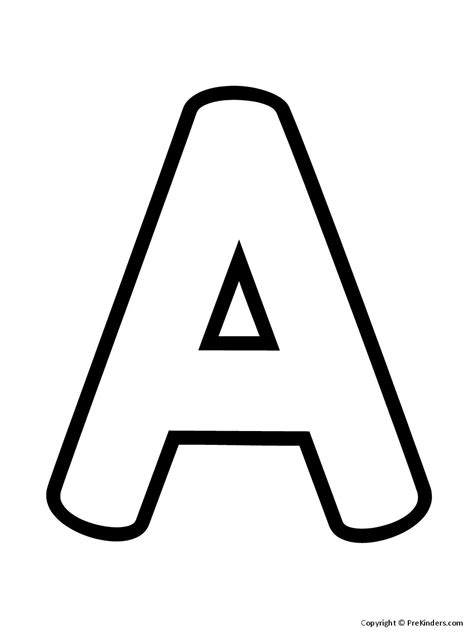
Create Stunning Bubble Letter Fonts in Four Easy Steps
Readers, have you ever wanted to create eye-catching, playful text that pops off the page? Bubble letter fonts are a fantastic way to add personality and visual interest to your designs. But if you're not a graphic design pro, you might think it's a difficult task. Don't worry, it’s not! You can easily generate stunning bubble letter fonts in just four simple steps.
I’ve been analyzing different techniques for creating bubble letters for years. Let me share my knowledge with you and show you how easy it is to achieve professional-looking results.
Getting Started with Bubble Letter Fonts
Step 1: Choose Your Font and Text
The first step is to choose a font that will serve as the basis for your bubble letters. There are many different fonts you can use, but I recommend starting with a simple sans-serif font for a clean look. For example, Arial, Helvetica, or Tahoma are great options.
Once you’ve chosen your font, type in the text you want to transform into bubble letters. This could be anything from a single word to a longer phrase or even a whole sentence. It’s up to you!
Step 2: Outline Your Letters
Now, let’s give those letters some shape. You can outline your letters in a few different ways:
- Using a pen tool: This gives you the most control, but it can take a bit longer. Simply draw a line around each letter, making sure to create smooth curves. Remember to use a color that stands out against the font’s color.
- Using a shape tool: This is a faster option and can be helpful for creating more uniform shapes. Many design programs have shape tools that let you create circles, ovals, squares, and other basic shapes. You can create a bubble effect by overlapping these shapes to create the outline.
- Using a filter: Some design programs have a “shadow” or “outline” filter that you can apply to your text. This is a quick and easy way to add a basic outline.
Step 3: Add Depth and Dimension
Once you have your outlines, it’s time to add some depth and dimension to your bubble letters. This is where the “bubble” effect comes in.
You can add depth in a few different ways. For example, you can use a gradient to create a sense of depth. By using a gradient, you can create a smooth transition from the lighter color of your font’s color to the darker color of your outline. This creates the illusion that the bubble is curved.
Another trick is to use a slightly darker shade of the outline color and fill the inside of the bubble with a slightly lighter shade of the outline color. This can create a more subtle, but still effective, bubble effect.
Step 4: Add Finishing Touches
Now that you’ve built the foundation, let’s add some finishing touches to make those bubble letters truly stand out.
- Add shadows: This will give your letters a sense of weight and make them appear more 3D. You can add a drop shadow by creating a blurred copy of the letters and placing it behind them.
- Incorporate textures: To add more visual interest, you can add a texture to your bubble letters. This could be anything from a simple wood grain pattern to a complex marble texture. Many design programs have a selection of textures you can use.
- Add embellishments: Get creative! You can add embellishments to your bubble letters to make them even more unique. This could include adding sparkles, stars, hearts, or anything else that comes to mind. The key is to have fun and let your creativity flow.
Tips for Creating Stunning Bubble Letter Fonts
Here are some tips for creating gorgeous bubble letter fonts:
- Keep it simple: Start with a basic shape and add details gradually. Don’t try to do too much at once.
- Use high contrast: Make sure the color of your letters is easily distinguishable from the background. This will help them stand out. Choose color combinations that complement each other.
- Experiment with different styles: Don’t be afraid to try different styles of bubble letters. You can create a variety of effects by using different shapes, colors, and textures.
- Practice, practice: The more you create, the more confident you will become. So don’t be afraid to make mistakes. Learning from your mistakes can be the best way to improve your skills.
Bubble Letter Fonts: Frequently Asked Questions
What are some popular uses for bubble letter fonts?
Bubble letter fonts are incredibly versatile. They’re often used for:
- Creating eye-catching logos: Bubble letters can lend a playful, friendly, or even whimsical tone to a brand.
- Designing invitations and greeting cards: They add a touch of charm and personality to special occasions.
- Adding visual interest to social media posts: They can help your content stand out in a crowded feed.
- Creating unique artwork: Experiment with different color schemes, textures, and patterns to create stunning pieces.
How can I create a bubble letter font using online tools?
There are plenty of user-friendly online tools that can help you create bubble letter fonts. Some popular options include:
- Canva: Canva offers a wide range of design templates and tools, including options for creating bubble letters. You can create beautiful designs, even if you don’t have any design experience.
- Fontmeme: Fontmeme is a web-based font generator that allows you to create custom bubble letter fonts. You can choose from various styles and customize the look of your letters.
- Adobe Fonts: Adobe Fonts offers a vast library of fonts, including many bubble letter options. You can browse and download fonts directly to your computer.
What are some common design mistakes to avoid when creating bubble letter fonts?
Here are some common mistakes to avoid when creating bubble letter fonts:
- Overdoing it: Keep the overall design simple and avoid adding too many elements, as this can overwhelm the viewer.
- Using too many colors: Stick to a limited color palette to create a cohesive look. Too many colors can make your design look cluttered.
- Not considering legibility: Make sure your bubble letters are easy to read. Avoid creating overly thin or complex outlines.